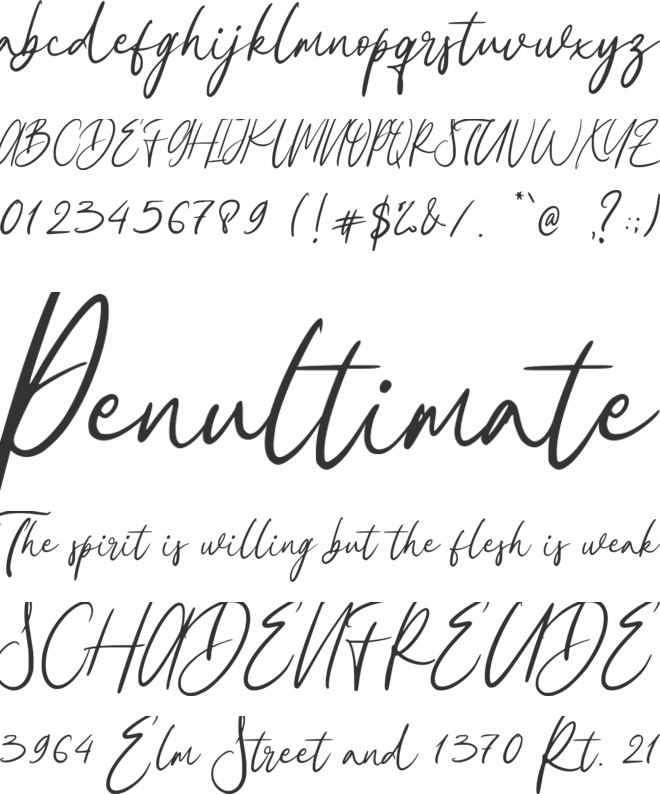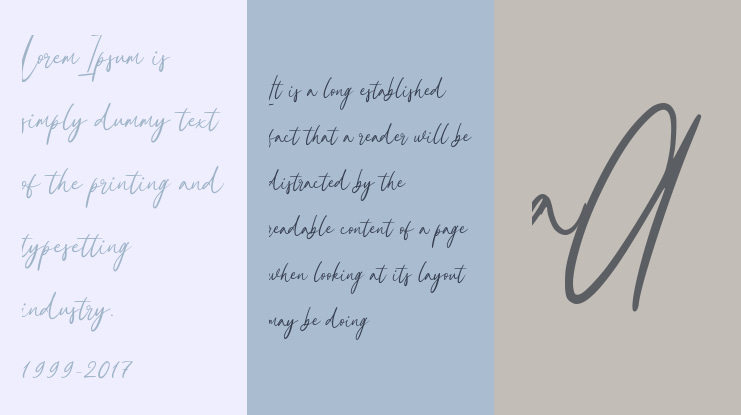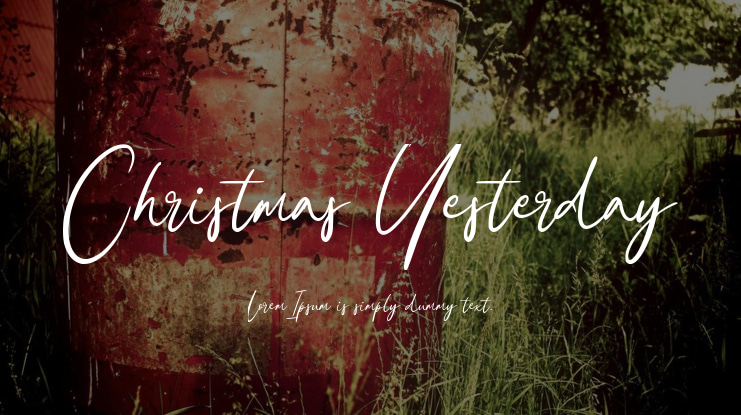
Christmas Yesterday Font
Enhance your event designs with the enchanting charm of Christmas Yesterday, a beautiful script font with a distinctive style. This meticulously crafted, hand-scribed typography emanates a genuine authenticity, fostering a cozy, familiar atmosphere. Perfectly suited to impart your Christmas and New Year’s design projects with an artisanal touch, Christmas Yesterday epitomizes elegance and simplicity. Beyond seasonal creativity, it can effortlessly enhance any project, bringing undeniable warmth and playful charm to your artistic endeavors.